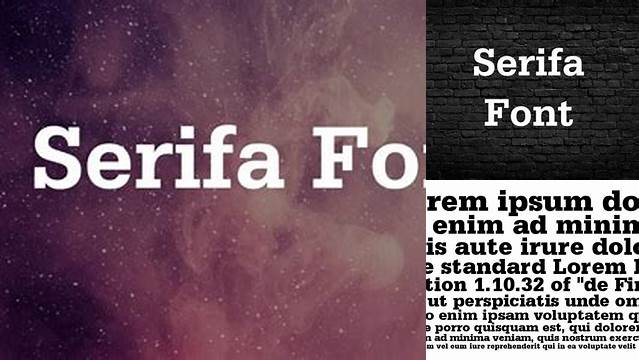
Serifa Black Font: Free Download Guide
Hey guys! Looking for a bold and stylish font to make your designs pop? You've probably heard of Serifa Black, and you're in the right place to learn how to get it for free. This guide will walk you through everything you need to know about Serifa Black, where to find it, and how to use it in your projects. We'll cover a ton of related topics too, so buckle up and let's dive in!
1. What is Serifa Black Font?
So, what exactly is Serifa Black font? It’s a member of the Serifa font family, known for its strong, geometric slab-serif design. Imagine a font that’s both modern and classic, bold and readable. That’s Serifa Black in a nutshell. Its thick serifs and heavy weight make it perfect for headlines, posters, and any design element that needs to grab attention. If you're aiming for a powerful visual impact, Serifa Black is definitely a font to consider. Think about its versatility – it can be used for everything from branding materials to editorial designs. The clean lines and distinct character shapes ensure readability even at larger sizes, making it ideal for headlines and titles. But what makes Serifa Black stand out from other fonts? Well, it's the perfect balance of sturdiness and sophistication. It has a presence without being overwhelming, a boldness that doesn’t sacrifice clarity. This makes it a go-to choice for designers who want to convey confidence and style in their work. The geometric structure of the serifs gives it a contemporary feel, while the overall form pays homage to classic typography. This blend ensures that Serifa Black remains relevant across various design trends and applications, proving its timeless appeal. Moreover, Serifa Black’s design includes subtle nuances that contribute to its unique character. The spacing between letters, the slight variations in stroke thickness, and the overall harmony of the glyphs are carefully considered. These details enhance readability and visual appeal, making the font not just functional but also aesthetically pleasing. When used in conjunction with lighter fonts, Serifa Black can create a dynamic contrast, drawing the reader's eye to key elements within a design. Its commanding presence is perfect for setting the tone and establishing a clear visual hierarchy, ensuring that your message is communicated effectively and with impact. Whether you’re working on a website, a print campaign, or a digital advertisement, Serifa Black can elevate your design, giving it a professional and polished look.
2. Key Features of Serifa Black
Let's talk about the key features of Serifa Black. What makes it so special? First off, its bold weight is a major draw. It's super impactful, making it perfect for headlines and titles. The slab-serif design gives it a geometric and modern feel. Think about how this font commands attention – it’s designed to be noticed. Its strong lines and sturdy serifs create a sense of stability and confidence. This makes it an excellent choice for brands that want to project strength and reliability. The boldness of Serifa Black ensures that it stands out, whether used in print or digital media. It's not just about being loud, though; it’s about making a statement with clarity and style. The geometric structure of the font is another key feature. Each letter is meticulously crafted with precise angles and clean lines, contributing to its modern aesthetic. This precision enhances readability and makes the font versatile for various applications. Whether you’re designing a logo, a website, or a poster, the geometric consistency of Serifa Black ensures that your text looks polished and professional. The slab serifs are also a defining characteristic, providing a solid foundation for each letter. These serifs are not delicate; they are bold and pronounced, adding to the font’s overall impact. This feature is particularly useful in situations where you need to ensure legibility, such as in signage or large-format printing. The serifs anchor the letters, making them easier to read at a glance. Another important aspect of Serifa Black is its versatility in different design contexts. It pairs well with lighter, sans-serif fonts, creating a visual contrast that can enhance the overall design. Imagine using Serifa Black for headlines and a lighter font for body text – this combination can create a dynamic and engaging layout. Additionally, the font's character set includes a wide range of glyphs, allowing for flexibility in typographic expression. This means you can use Serifa Black for various languages and special characters, making it a practical choice for international projects. The attention to detail in the design of Serifa Black extends beyond just the individual letters. The spacing between letters, known as kerning, is carefully considered to ensure optimal readability. This fine-tuning makes a significant difference in how the font appears, especially in longer blocks of text. The result is a font that is not only visually striking but also highly functional. In summary, the key features of Serifa Black – its bold weight, slab-serif design, geometric structure, versatility, and attention to detail – make it a standout choice for designers looking to make a strong visual statement.
4. Free Alternatives to Serifa Black Font
If you can't find a free version of Serifa Black itself, don't worry! There are tons of free alternatives to Serifa Black font out there that offer a similar vibe. Look for slab-serif fonts with a bold weight. Fonts like Arvo, Roboto Slab, and Bevan can give you that strong, geometric feel. It’s all about finding a font that captures the essence of Serifa Black without costing you a dime. Think about what aspects of Serifa Black appeal to you most – is it the boldness, the geometric shapes, or the overall slab-serif style? Identifying these key features will help you narrow down your search for the perfect alternative. Arvo, for example, is a popular choice because it shares the slab-serif characteristics and strong presence of Serifa Black. Its clean lines and sturdy serifs make it an excellent option for headlines and branding materials. Roboto Slab, part of the larger Roboto family, is another fantastic alternative. It offers a more modern and versatile feel, with various weights and styles available for free. This makes it a great choice if you need a consistent look across different design elements. Bevan is another strong contender, known for its bold and condensed design. It has a vintage yet contemporary feel, making it ideal for posters, logos, and other display purposes. Its unique letterforms give it a distinctive character that can add a touch of personality to your projects. When searching for free alternatives, consider exploring font repositories like Google Fonts, Font Squirrel, and dafont. These websites offer a vast selection of free fonts, often with clear licensing terms that allow for both personal and commercial use. It’s always a good idea to check the license before using a font in your projects to ensure you’re complying with the designer’s requirements. Another helpful tip is to use font identification tools. If you see a font you like but aren’t sure of its name, these tools can help you identify it or suggest similar typefaces. This can be particularly useful if you’re trying to match a specific aesthetic or replicate a design. Remember, the goal is to find a font that captures the essence of Serifa Black while still being free and legally usable. This might involve trying out several different options and experimenting with font pairings. Don’t be afraid to mix and match different fonts to create a unique and compelling design. In addition to looking for direct alternatives, consider exploring fonts within the same category. Slab-serif fonts come in a wide range of styles, from the more traditional to the highly modern. By browsing through different options, you might discover a hidden gem that perfectly suits your needs. Ultimately, the best free alternative to Serifa Black is the one that resonates with your design vision and effectively communicates your message. With a little bit of research and experimentation, you can find a font that not only saves you money but also enhances your creative work.
6. Using Serifa Black in Graphic Design
So, how can you actually use Serifa Black in graphic design? This font is a powerhouse for headlines and titles. Its bold presence commands attention, making it perfect for grabbing your audience's eye. Think about using it in posters, website headers, or even logos. The key is to leverage its strength without overpowering the rest of your design. But let’s dive a bit deeper into the specifics of how Serifa Black can enhance your graphic design projects. This font is incredibly versatile, but its impact is most noticeable when used strategically. Its bold and sturdy appearance makes it ideal for creating strong visual hierarchies and drawing attention to key elements within your design. One of the primary uses of Serifa Black is in headlines and titles. Its commanding presence ensures that your message is immediately noticed, making it perfect for posters, banners, and website headers. When using Serifa Black for headlines, consider the size and spacing carefully. The font’s weight can make it appear larger than other fonts, so you might need to adjust the size to achieve a balanced look. Proper kerning and tracking are also crucial to ensure readability and visual appeal. Another effective way to use Serifa Black is in logos and branding materials. Its bold and geometric style can convey a sense of strength and reliability, making it a great choice for businesses that want to project a confident image. Pair it with a lighter, sans-serif font for body text to create a contrast that enhances readability and visual interest. In editorial design, Serifa Black can be used to create striking section headings and pull quotes. Its distinctive serifs and strong presence add a touch of sophistication to the layout, while its boldness ensures that these elements stand out from the body text. When incorporating Serifa Black into your designs, think about the overall tone and message you want to convey. This font works well in designs that need to be authoritative, modern, or impactful. It’s a great choice for projects that require a bold statement, such as advertisements, event posters, and promotional materials. However, it’s important to use Serifa Black judiciously. Overusing such a bold font can lead to visual clutter and overwhelm the viewer. Balance its strength with plenty of white space and simpler design elements to create a harmonious composition. Experiment with different font pairings to find the perfect complement to Serifa Black. As mentioned earlier, lighter sans-serif fonts often work well, but you can also try pairing it with other slab-serif fonts that have a more subtle weight. Remember, graphic design is all about visual communication, and the fonts you choose play a crucial role in conveying your message. Serifa Black is a powerful tool that can help you make a lasting impression, but it’s important to use it thoughtfully and creatively. In conclusion, Serifa Black is a fantastic font for graphic design, particularly when used for headlines, titles, logos, and branding. Its bold presence and geometric style make it a standout choice for projects that need to convey strength, modernity, or impact. By using it strategically and pairing it with complementary fonts, you can create visually stunning designs that capture attention and communicate your message effectively.
7. Font Pairing with Serifa Black
Okay, so you've got Serifa Black, but what fonts play nice with it? Font pairing with Serifa Black is key to creating a balanced design. Since Serifa Black is so bold, pairing it with a lighter sans-serif font often works best. Think about using something like Open Sans or Lato for body text. This creates a nice contrast and makes your design easy to read. Pairing fonts is an art, and the right combination can elevate your design from good to great. When it comes to Serifa Black, its strong and assertive personality calls for a pairing that complements rather than competes. The goal is to create a harmonious balance that enhances readability and visual appeal. One of the most effective strategies for font pairing with Serifa Black is to use a clean and simple sans-serif font for body text. Fonts like Open Sans, Lato, and Montserrat are excellent choices because they offer clarity and legibility without overshadowing the boldness of Serifa Black. These sans-serif fonts provide a subtle contrast that makes your headlines and titles stand out while ensuring that the body text remains easy to read. The key is to choose a font that doesn’t have too much personality of its own, allowing Serifa Black to take center stage. Another approach is to pair Serifa Black with a lighter weight of the same font family. This creates a cohesive look while still maintaining a clear distinction between headlines and body text. For example, if you're using Serifa Black for your headlines, you could use regular or light Serifa for the body text. This technique works well when you want to create a consistent brand identity or maintain a unified design aesthetic. In addition to sans-serif fonts, you can also experiment with serif fonts that have a more delicate or classic feel. A font like Garamond or Times New Roman can provide an elegant contrast to the modernity of Serifa Black. However, it’s important to ensure that the serif fonts you choose don’t clash with Serifa Black’s geometric style. Consider the overall tone and message of your design when selecting font pairings. If you're aiming for a contemporary and bold look, stick with clean sans-serif fonts. If you want to convey a more sophisticated or traditional feel, a classic serif font might be the better option. When experimenting with font pairings, pay attention to the visual hierarchy you're creating. The headline font should be the most prominent element on the page, drawing the reader's eye and conveying the main message. The body text font should be secondary, providing detailed information in a clear and readable manner. Test your font pairings in different contexts to see how they perform in various layouts and sizes. What looks good on a large poster might not work as well on a small business card. Consider the specific application of your design and adjust your font choices accordingly. In conclusion, font pairing with Serifa Black requires a thoughtful approach to achieve a balanced and visually appealing design. By pairing it with lighter sans-serif fonts, using different weights within the same font family, or experimenting with delicate serif fonts, you can create a harmonious composition that effectively communicates your message.
8. Serifa Black for Logos and Branding
Let's talk logos! Serifa Black for logos and branding is a fantastic choice if you want a strong and memorable visual identity. Its boldness conveys confidence and reliability, perfect for brands that want to make a statement. Think about companies in industries like technology, finance, or even fashion that want a modern yet classic feel. But how exactly can you leverage Serifa Black to create a compelling brand identity? Logos are the cornerstone of branding, and the font you choose plays a crucial role in conveying your brand’s personality and values. Serifa Black, with its strong and assertive presence, can be a powerful tool for creating a logo that stands out and makes a lasting impression. One of the key advantages of using Serifa Black in logos is its versatility. It works well in various industries and can be adapted to suit different brand aesthetics. Whether you’re designing a logo for a tech startup, a financial institution, or a fashion brand, Serifa Black can be customized to fit the specific needs of your business. Its bold and geometric style conveys a sense of strength, stability, and modernity, making it an excellent choice for brands that want to project confidence and reliability. When using Serifa Black in your logo, consider the overall design and composition. Simplicity is often key, especially in logo design. A clean and uncluttered logo is more memorable and effective than a complex one. Serifa Black’s strong presence allows you to create a logo that is both visually striking and easy to recognize. Experiment with different letter combinations and arrangements to find the most impactful design. Another important aspect of logo design is color. The colors you choose should complement the font and reflect your brand’s personality. Serifa Black pairs well with a wide range of colors, from bold and vibrant hues to more subtle and sophisticated tones. Consider using contrasting colors to make your logo stand out, or opt for a monochromatic palette for a more elegant and understated look. In addition to the logo itself, Serifa Black can be used throughout your branding materials to create a consistent visual identity. Use it for headlines, subheadings, and other key elements in your website, business cards, and marketing materials. This will help reinforce your brand’s message and create a cohesive look and feel across all your touchpoints. When developing your brand identity, think about the overall tone and message you want to convey. Serifa Black’s boldness makes it ideal for brands that want to project strength, confidence, and innovation. However, it can also be adapted to suit more classic or traditional aesthetics by pairing it with complementary fonts and design elements. Remember, a successful logo is more than just a pretty picture. It’s a visual representation of your brand’s values, personality, and mission. By using Serifa Black thoughtfully and creatively, you can create a logo that not only looks great but also effectively communicates your brand’s unique identity. In conclusion, Serifa Black is an excellent choice for logos and branding, particularly for brands that want to convey strength, reliability, and modernity. Its bold presence and geometric style make it a versatile and impactful font that can be adapted to suit various industries and aesthetics. By using it strategically and pairing it with complementary design elements, you can create a compelling brand identity that resonates with your target audience.
9. Web Design Applications for Serifa Black
Now, let's talk digital. Web design applications for Serifa Black are vast. It’s perfect for website headers and navigation menus where you want to make a statement. Its strong presence can guide users and highlight important sections. However, use it sparingly for body text, as its boldness can become overwhelming for large blocks of text. Think about how you can use it to create visual hierarchy on your site. Web design is a delicate balance of aesthetics and functionality, and the fonts you choose play a crucial role in both. Serifa Black, with its bold and impactful presence, can be a valuable asset in web design, but it’s essential to use it strategically to achieve the best results. One of the primary applications of Serifa Black in web design is for headers and titles. Its strong and assertive appearance makes it perfect for drawing attention to key sections of your website. Whether you’re designing a homepage, a landing page, or a blog post, Serifa Black can help you create a clear visual hierarchy and guide users through your content. When using Serifa Black for headers, consider the overall layout and design of your website. The font’s boldness can be a powerful tool for creating focal points and breaking up large blocks of text. However, it’s important to balance its strength with plenty of white space and other visual elements to avoid overwhelming the user. Another effective way to use Serifa Black in web design is for navigation menus. Its strong presence can help users quickly identify and access different sections of your website. Use it sparingly, though, and ensure that the menu is clean and uncluttered for optimal usability. While Serifa Black is excellent for headers and navigation, it’s generally not recommended for body text. Its boldness can make it difficult to read long paragraphs, which can lead to a poor user experience. Instead, opt for a lighter, more legible font for body text, such as Open Sans, Lato, or Roboto. Pairing Serifa Black with a clean and simple sans-serif font can create a harmonious contrast that enhances readability and visual appeal. Think about the overall tone and message of your website when incorporating Serifa Black into your design. If you’re aiming for a modern and bold aesthetic, Serifa Black can be a great choice. However, if your website has a more classic or understated feel, you might want to use it more sparingly or choose a different font altogether. Consider the responsiveness of your website when using Serifa Black. Ensure that the font looks good on different devices and screen sizes. Test it on mobile devices and tablets to make sure it’s legible and doesn’t disrupt the layout. Remember, web design is all about creating a user-friendly experience. The fonts you choose should enhance readability and guide users through your content seamlessly. Serifa Black can be a valuable tool for achieving this, but it’s important to use it thoughtfully and strategically. In conclusion, Serifa Black can be a powerful asset in web design, particularly for headers, titles, and navigation menus. Its bold presence can help you create a clear visual hierarchy and guide users through your content. However, it’s important to use it sparingly for body text and pair it with complementary fonts to ensure optimal readability and user experience.
10. Print Design Applications for Serifa Black
Moving to the physical world, print design applications for Serifa Black are numerous. Think posters, flyers, brochures, and even business cards. Its boldness ensures your message is seen, especially in a world saturated with visuals. In print, you need to make an impact quickly, and Serifa Black is perfect for that. But let’s delve deeper into how Serifa Black can enhance your print design projects. Print design demands attention to detail, and the fonts you choose play a crucial role in the overall impact of your printed materials. Serifa Black, with its strong and assertive presence, is a valuable asset for creating eye-catching and memorable designs. One of the primary applications of Serifa Black in print design is for posters and flyers. Its boldness ensures that your message stands out, even in a crowded environment. Use it for headlines, titles, and other key elements that you want to emphasize. Consider the size and layout of your poster or flyer when incorporating Serifa Black. The font’s weight can make it appear larger than other fonts, so you might need to adjust the size to achieve a balanced look. Ensure that the text is legible from a distance and that the overall design is visually appealing. Another effective way to use Serifa Black in print design is for brochures and booklets. Its strong presence can help you create clear section headings and draw attention to important information. Pair it with a lighter font for body text to create a contrast that enhances readability. When designing brochures, think about the overall flow and layout. Serifa Black can be used to guide readers through the content and highlight key takeaways. Use it strategically to create a visual hierarchy that makes the brochure easy to navigate. Serifa Black can also be used effectively in business cards. Its boldness can help your business card stand out and make a lasting impression. Keep the design clean and simple, and use Serifa Black sparingly to avoid overwhelming the card. Consider the paper stock and printing techniques when using Serifa Black in business cards. A high-quality paper stock and professional printing can enhance the font’s appearance and create a more polished look. In print design, it’s crucial to consider the overall tone and message you want to convey. Serifa Black’s boldness makes it ideal for designs that need to be authoritative, modern, or impactful. However, it can also be adapted to suit more classic or traditional aesthetics by pairing it with complementary fonts and design elements. Remember, print design is all about creating a tangible and lasting impression. The fonts you choose play a crucial role in achieving this. Serifa Black is a powerful tool that can help you make a statement, but it’s important to use it thoughtfully and creatively. In conclusion, Serifa Black is an excellent choice for print design applications, particularly for posters, flyers, brochures, and business cards. Its bold presence and geometric style make it a standout font that can help your message stand out. By using it strategically and pairing it with complementary fonts and design elements, you can create visually stunning and effective print materials.
11. Serifa Black for Social Media Graphics
Social media is all about grabbing attention quickly, and Serifa Black for social media graphics is perfect for that. Use it in your post titles, banners, and profile headers to make a statement. Its bold style ensures your content stands out in the crowded newsfeed. Just remember to keep it readable on smaller screens. Social media graphics need to be visually appealing and engaging to capture the attention of users scrolling through their feeds. Serifa Black, with its strong and assertive presence, can be a valuable asset in creating social media content that stands out. One of the primary applications of Serifa Black in social media graphics is for post titles and headlines. Its boldness ensures that your message is immediately noticed, making it perfect for grabbing the attention of your audience. Consider the platform you’re designing for when using Serifa Black in social media graphics. Different platforms have different dimensions and layouts, so it’s important to optimize your graphics for each one. Ensure that the text is legible on smaller screens and that the overall design is visually appealing. Another effective way to use Serifa Black in social media graphics is for banners and profile headers. These are the first things people see when they visit your profile, so it’s important to make a good impression. Use Serifa Black to create a strong and memorable header that reflects your brand’s personality. When designing banners and headers, think about the overall visual identity you want to project. Serifa Black can be used to convey strength, confidence, and modernity, making it a great choice for brands that want to make a statement. Pair it with complementary fonts and design elements to create a cohesive and visually appealing design. Social media graphics often include text overlays on images or videos. Serifa Black can be used to create eye-catching text that stands out against the background. Use it sparingly, though, and ensure that the text is legible and doesn’t obscure the image or video. Consider the color and contrast of your text when using Serifa Black in social media graphics. Choose colors that complement the background and make the text easy to read. A high contrast between the text and background can help your message stand out and grab attention. Remember, social media graphics need to be visually engaging and shareable. Use Serifa Black to create content that is both informative and visually appealing. Experiment with different layouts and design elements to find what works best for your audience. In social media, it’s important to stay consistent with your branding. Use Serifa Black throughout your social media graphics to create a cohesive visual identity. This will help your audience recognize your brand and make your content more memorable. In conclusion, Serifa Black is an excellent choice for social media graphics, particularly for post titles, banners, and profile headers. Its bold presence and geometric style make it a standout font that can help your content grab attention. By using it strategically and optimizing your graphics for different platforms, you can create visually stunning and engaging social media content that resonates with your audience.
12. Using Serifa Black in Presentations
Presentations need to be clear and impactful, and using Serifa Black in presentations can help. It’s great for slide titles and headings, ensuring your key points stand out. Just avoid using it for large blocks of body text, as it can be too overwhelming. Think about using it to highlight key data points or takeaways. Presentations are a visual medium, and the fonts you choose play a crucial role in conveying your message effectively. Serifa Black, with its strong and assertive presence, can be a valuable asset in creating presentations that capture attention and leave a lasting impression. One of the primary applications of Serifa Black in presentations is for slide titles and headings. Its boldness ensures that your key points stand out, making it perfect for guiding your audience through your presentation. Consider the overall design of your slides when using Serifa Black. The font’s weight can make it appear larger than other fonts, so you might need to adjust the size to achieve a balanced look. Ensure that the text is legible from a distance and that the overall layout is visually appealing. Another effective way to use Serifa Black in presentations is to highlight key data points or takeaways. Its strong presence can help you draw attention to important information and make it more memorable for your audience. Use it sparingly, though, and avoid overcrowding your slides with too much text. While Serifa Black is excellent for titles and headings, it’s generally not recommended for large blocks of body text. Its boldness can make it difficult to read long paragraphs, which can distract your audience and reduce their engagement. Instead, opt for a lighter, more legible font for body text, such as Open Sans, Lato, or Roboto. Pairing Serifa Black with a clean and simple sans-serif font can create a harmonious contrast that enhances readability and visual appeal. When designing presentations, think about the overall tone and message you want to convey. Serifa Black’s boldness makes it ideal for presentations that need to be authoritative, modern, or impactful. However, it can also be adapted to suit more classic or traditional presentations by pairing it with complementary fonts and design elements. Consider the visual hierarchy of your slides when using Serifa Black. The title should be the most prominent element, followed by the headings and key data points. Use font sizes and styles to create a clear visual hierarchy that guides your audience through your presentation. Remember, presentations are a visual medium, and your goal is to communicate your message effectively. The fonts you choose should enhance readability and engagement, not distract from your message. Serifa Black can be a valuable tool for achieving this, but it’s important to use it thoughtfully and strategically. In conclusion, Serifa Black can be a powerful asset in presentations, particularly for slide titles, headings, and highlighting key data points. Its bold presence can help you capture attention and make your message more memorable. However, it’s important to use it sparingly for body text and pair it with complementary fonts to ensure optimal readability and engagement.
13. Serifa Black in Editorial Design
Editorial design, like magazines and newspapers, can benefit from Serifa Black in editorial design. It’s great for section headers and pull quotes, adding a touch of sophistication and boldness. Its strong presence can help organize content and draw readers in. Just be mindful of readability for longer articles. Editorial design is all about creating visually appealing and engaging layouts that guide readers through content seamlessly. Serifa Black, with its strong and assertive presence, can be a valuable asset in editorial design, but it’s essential to use it strategically to achieve the best results. One of the primary applications of Serifa Black in editorial design is for section headers and titles. Its boldness ensures that your content is well-organized and that readers can easily navigate through the article or magazine. Consider the overall design of the publication when using Serifa Black. The font’s weight can make it appear larger than other fonts, so you might need to adjust the size to achieve a balanced look. Ensure that the text is legible and that the overall layout is visually appealing. Another effective way to use Serifa Black in editorial design is for pull quotes. Its strong presence can help you draw attention to key excerpts and make them more memorable for your readers. Use it sparingly, though, and avoid overcrowding the page with too many pull quotes. While Serifa Black is excellent for headers and pull quotes, it’s generally not recommended for large blocks of body text. Its boldness can make it difficult to read long paragraphs, which can reduce reader engagement. Instead, opt for a lighter, more legible font for body text, such as Garamond, Times New Roman, or Georgia. Pairing Serifa Black with a classic serif font can create a harmonious contrast that enhances readability and visual appeal. When designing editorial layouts, think about the overall tone and message you want to convey. Serifa Black’s boldness makes it ideal for publications that need to be authoritative, modern, or impactful. However, it can also be adapted to suit more classic or traditional publications by pairing it with complementary fonts and design elements. Consider the visual hierarchy of your editorial layout when using Serifa Black. The title should be the most prominent element, followed by the section headers and pull quotes. Use font sizes and styles to create a clear visual hierarchy that guides readers through your content. Remember, editorial design is all about creating a seamless and engaging reading experience. The fonts you choose should enhance readability and visual appeal, not distract from the content. Serifa Black can be a valuable tool for achieving this, but it’s important to use it thoughtfully and strategically. In conclusion, Serifa Black can be a powerful asset in editorial design, particularly for section headers, pull quotes, and titles. Its bold presence can help you organize content and draw readers in. However, it’s important to use it sparingly for body text and pair it with complementary fonts to ensure optimal readability and engagement.
14. Legal Considerations for Free Font Downloads
Okay, this is super important: legal considerations for free font downloads. Just because a font is free doesn't mean you can use it however you want. Always check the licensing agreement. Some fonts are free for personal use but require a commercial license for business projects. Ignoring this can lead to some serious legal trouble, guys! Navigating the world of free font downloads can be exciting, but it’s crucial to understand the legal considerations involved. Fonts are creative works, and their usage is governed by licensing agreements. Ignoring these agreements can lead to legal repercussions, so it’s essential to be informed and cautious when downloading and using free fonts. One of the primary legal considerations for free font downloads is the licensing agreement. Every font comes with a license that specifies how it can be used. Some fonts are free for personal use only, while others can be used for commercial projects as well. It’s essential to read and understand the licensing agreement before using a font in your designs. Personal use fonts are typically free for non-commercial projects, such as school assignments, personal blogs, and hobby projects. Commercial use fonts, on the other hand, can be used for business projects, such as logos, websites, and marketing materials. However, even commercial use fonts may have restrictions, such as limitations on the number of users or the types of projects they can be used in. Another important legal consideration is the font’s copyright. Fonts are protected by copyright law, which means that the designer or foundry owns the rights to the font. You cannot legally copy, modify, or distribute a font without permission from the copyright holder, unless the licensing agreement allows it. When downloading free fonts, it’s crucial to ensure that you’re getting them from a reputable source. There are many websites that offer free fonts, but not all of them are legitimate. Some sites may distribute fonts without permission from the copyright holder, which is illegal. To avoid legal trouble, download fonts only from trusted sources, such as the designer’s website, a reputable font foundry, or a well-known font marketplace. Pay attention to the font’s licensing terms when downloading it. Most websites will provide a copy of the licensing agreement or a summary of the key terms. Read this carefully to ensure that you understand how you can use the font. If you’re unsure about the licensing terms, it’s always best to err on the side of caution and contact the designer or foundry for clarification. Using a font in a way that violates its licensing agreement can have serious consequences, including legal action and financial penalties. It’s always better to be safe than sorry, so make sure you understand the legal considerations before using a free font in your projects. In conclusion, legal considerations are a critical aspect of free font downloads. Always check the licensing agreement, download fonts from reputable sources, and be aware of copyright laws to avoid any legal issues. By being informed and cautious, you can enjoy using free fonts in your designs without any worries.
15. Troubleshooting Font Installation Issues
Fonts can be finicky sometimes, so let's talk about troubleshooting font installation issues. If a font doesn't show up in your program after installation, try restarting the program or even your computer. Sometimes the system just needs a little refresh. Also, make sure the font file isn't corrupted. A fresh download might do the trick! Font installation is usually a straightforward process, but sometimes things don’t go as planned. If you encounter issues during font installation, don’t worry! There are several common troubleshooting steps you can take to resolve the problem. One of the most common font installation issues is that the font doesn’t appear in your application’s font menu after installation. This can be frustrating, but it’s often an easy fix. The first thing to try is restarting the application. Sometimes, applications need to be restarted to recognize newly installed fonts. Close the application completely and then reopen it to see if the font appears in the font menu. If restarting the application doesn’t work, try restarting your computer. This can help refresh the system’s font cache and ensure that all installed fonts are recognized. A system restart can resolve many font-related issues, so it’s always worth a try. Another common issue is that the font file is corrupted. This can happen if the file was downloaded improperly or if there was an error during the download process. If you suspect that the font file is corrupted, try downloading it again from the source. Ensure that you’re downloading the font from a reputable website to avoid downloading malware or other harmful files. If you’re still having trouble installing the font, check the font file format. Fonts typically come in two formats: TrueType (.ttf) and OpenType (.otf). Both formats are widely supported, but some applications or operating systems may have compatibility issues with certain font formats. If you’re using an older application or operating system, try installing a font in a different format to see if that resolves the issue. Another potential cause of font installation issues is font conflicts. If you have multiple versions of the same font installed on your system, it can cause conflicts and prevent the font from displaying correctly. To resolve font conflicts, try removing any duplicate fonts from your system. You can use a font management tool to identify and remove duplicate fonts. If you’re using Windows, you can access the Fonts folder through the Control Panel. In macOS, you can use the Font Book application to manage your fonts. Sometimes, font installation issues can be caused by permission problems. If you don’t have the necessary permissions to install fonts on your system, you may encounter errors during the installation process. To resolve permission issues, try running the font installation program as an administrator. In Windows, you can do this by right-clicking the font file and selecting “Run as administrator.” If you’re still having trouble installing fonts, consult your operating system’s documentation or online resources for additional troubleshooting steps. There are many helpful articles and tutorials available that can guide you through the font installation process and help you resolve any issues you encounter. In conclusion, font installation issues can be frustrating, but they are often easy to resolve. By following these troubleshooting steps, you can typically get your fonts installed and working properly. Remember to restart your application or computer, check the font file format, resolve font conflicts, and ensure you have the necessary permissions to install fonts. With a little patience and persistence, you can overcome most font installation challenges.
16. Serif vs. Sans-Serif Fonts: A Quick Comparison
Let's get back to basics with serif vs. sans-serif fonts: a quick comparison. Serifa Black is a serif font, meaning it has those little